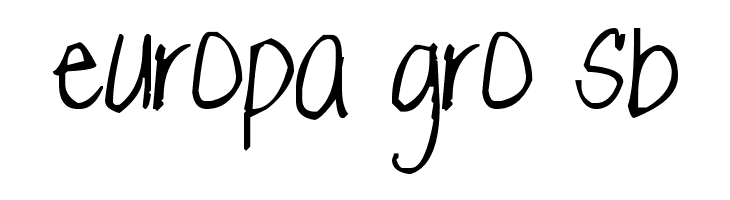
• Pea Kathy
A playful, handwritten-style font with smooth, fluid strokes and a casual appearance.
• Pea Shelley Thin
A playful, casual handwritten font with a lively and informal style.
• Pea Liz
A playful, handwritten font with a casual and dynamic style.
• Pea Dalovely Damanda Doodles
A playful doodle font with seasonal and thematic illustrations.
• Pea Olson
A casual, handwritten font with fluid strokes and a playful style.
• Pea Lindsey Unicase
A playful, handwritten font with a mix of uppercase and lowercase letters.
• Pea Gretchie Print
A playful, casual handwritten font with an organic flow and uneven strokes.
• Pea Walker
A playful, handwritten font with bold strokes and a casual, approachable style.
• Pea Jean Script
A bold, handwritten script font with a casual and playful style.
• Pea Prochazka
A casual, handwritten font with a playful and informal style.